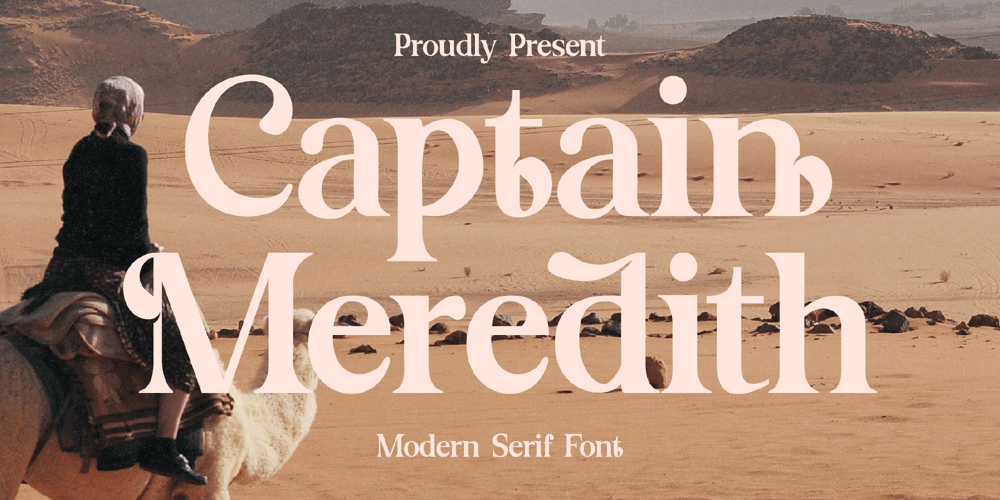
Captain Meredith Font Family was designed by Heru Utama Putra and published by Letterena Studios. Captain Meredith contains 2 styles and family package options. Captain Meredith Typeface is a serif modern and classic typeface that has its own unique style & modern look.This typeface is perfect for an elegant & luxury logo, book or movie title design, fashion brand, magazine, clothes, lettering, quotes, and so much more. This font is PUA encoded which means you can access all of the amazing glyphs and ligatures with ease!